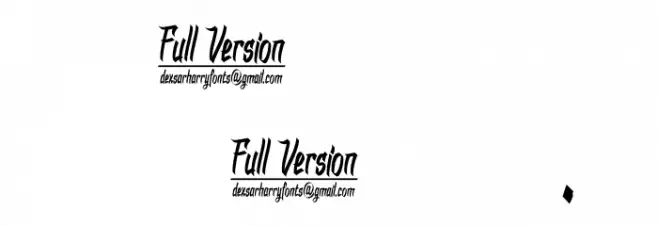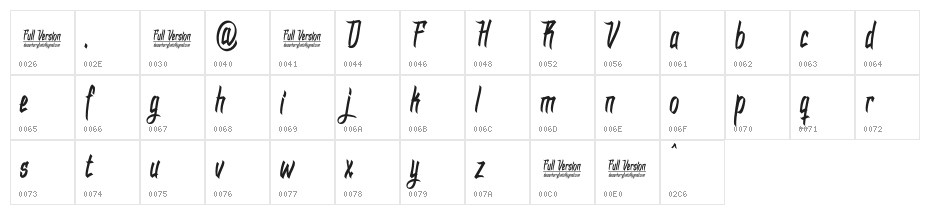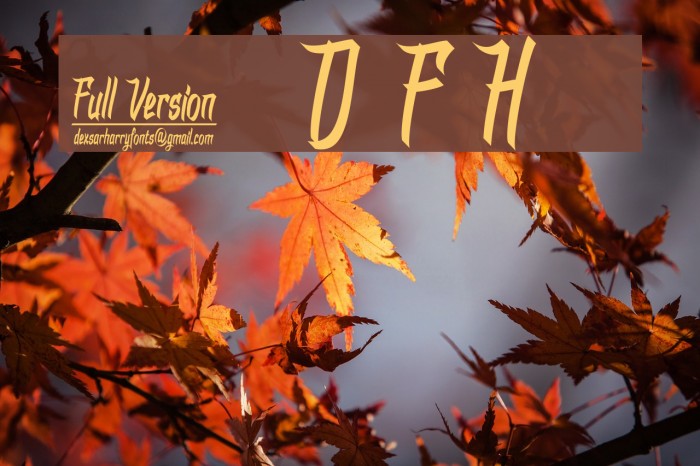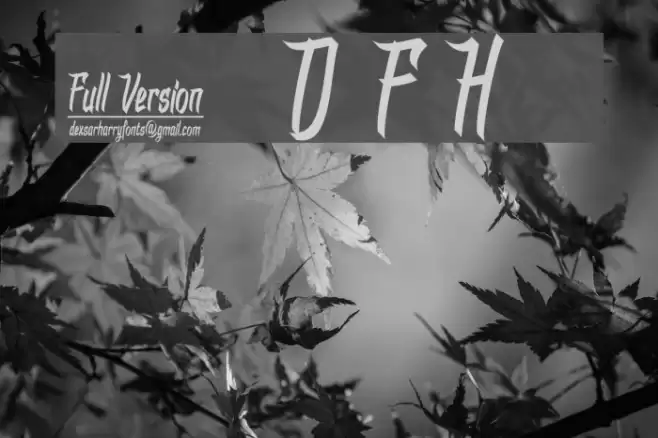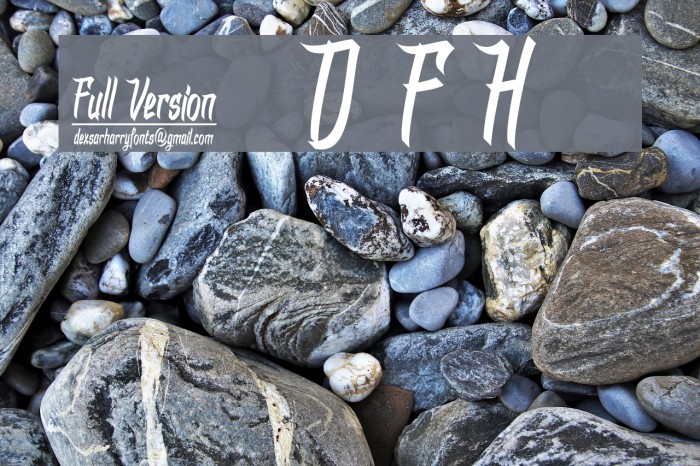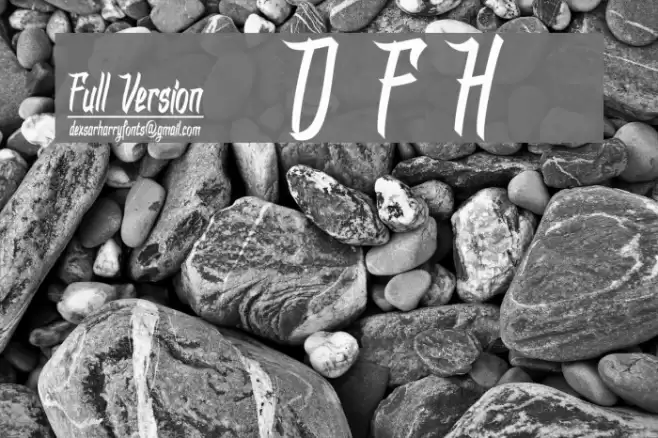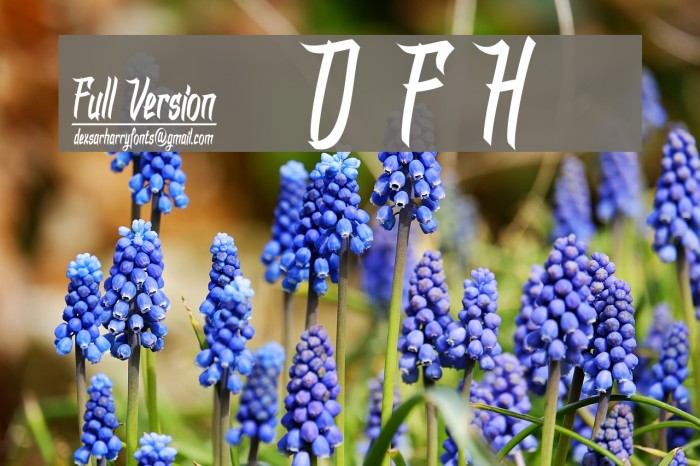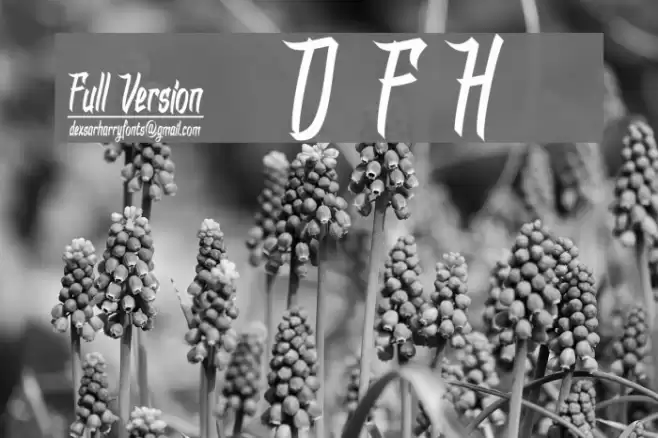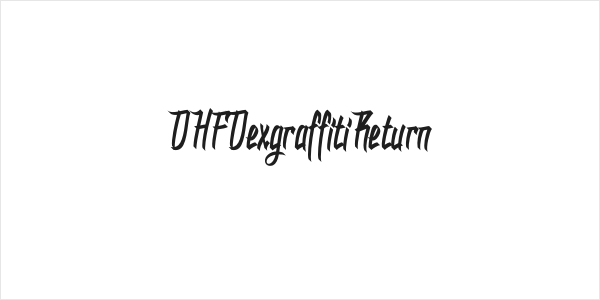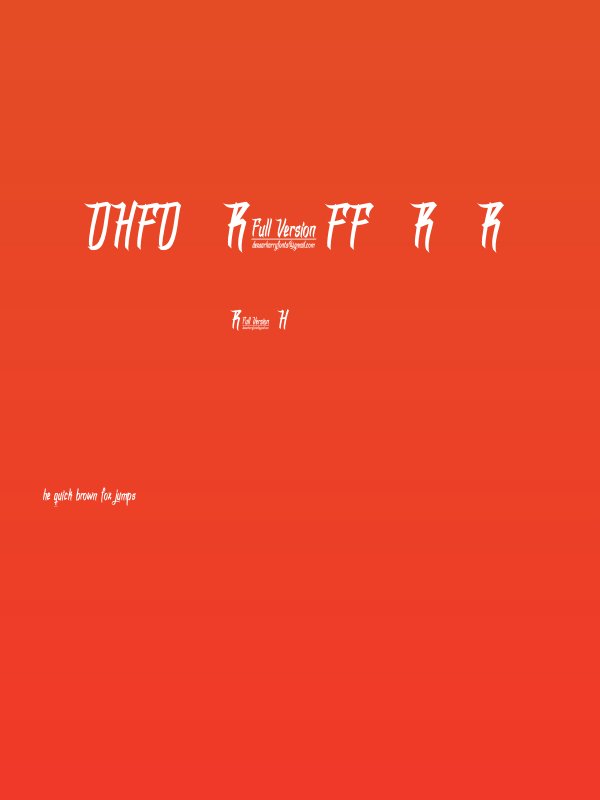
DHFDexgraffitiReturn Font
DHFDexgraffitiReturn Description
This font features a bold, dynamic style reminiscent of graffiti art, characterized by sharp angles and fluid curves. The uppercase letters are tall and narrow, with a distinctive flair that gives them a sense of movement and energy. The lowercase letters maintain a consistent style, with elongated strokes and unique character shapes that add to the overall edgy aesthetic. The font's design is both artistic and legible, making it suitable for creative projects that require a strong visual impact. The spacing between characters is tight, enhancing the compact and cohesive look of the text.
| Overall Style | Modern, Urban |
| Proposed Projects | Ideal for street art designs, urban-themed posters, music album covers, and edgy branding projects. |